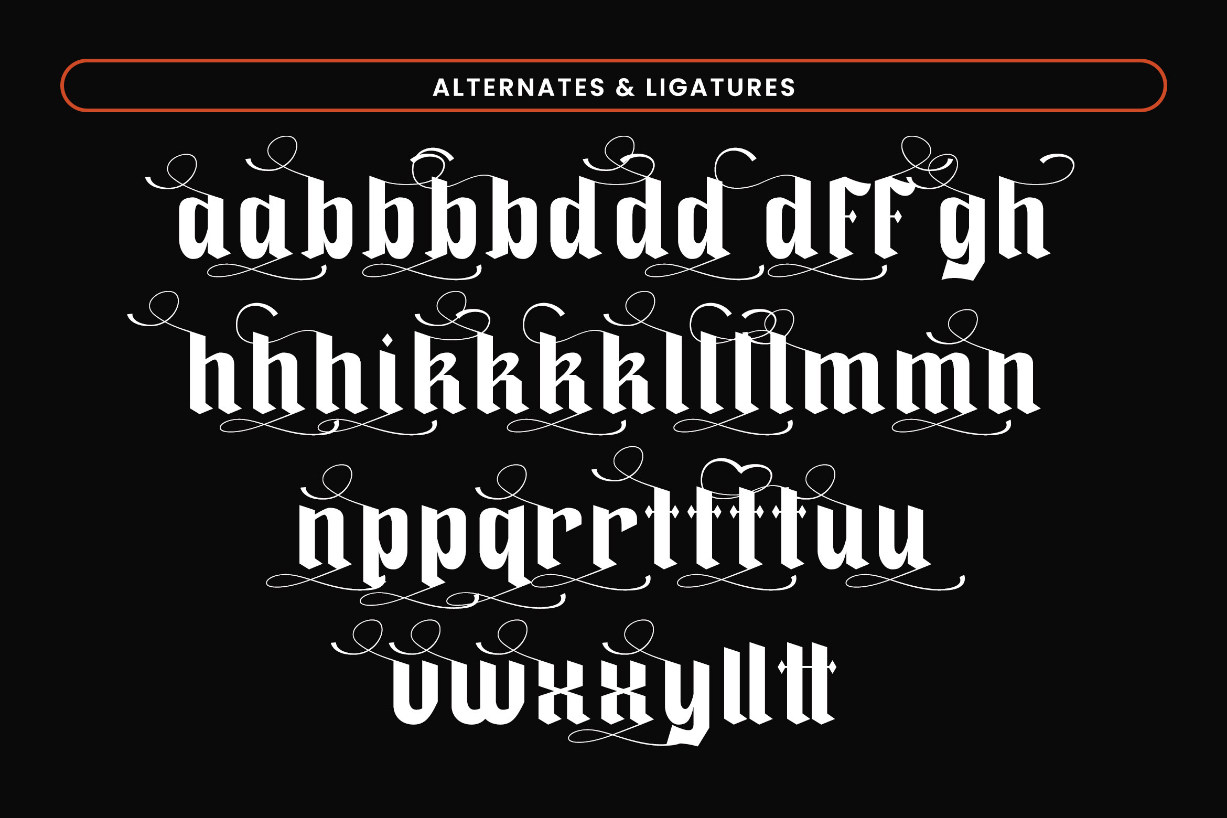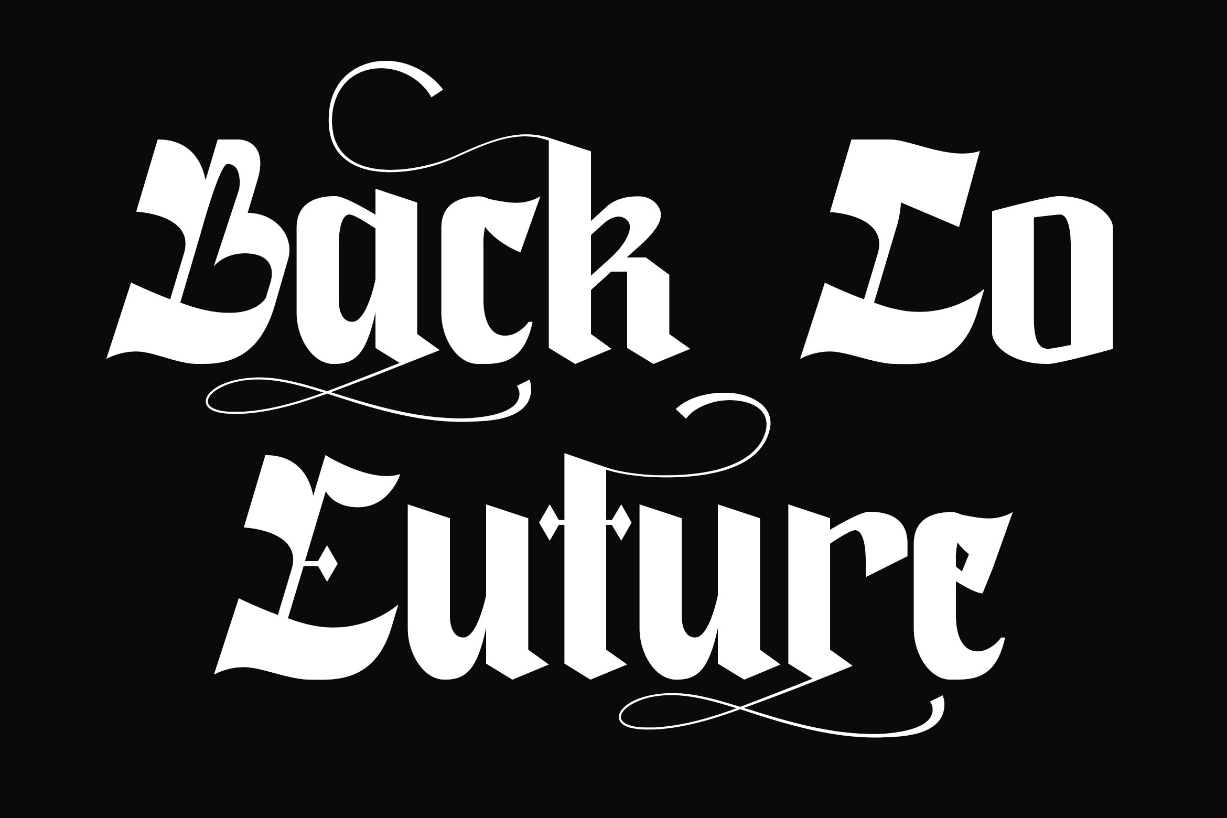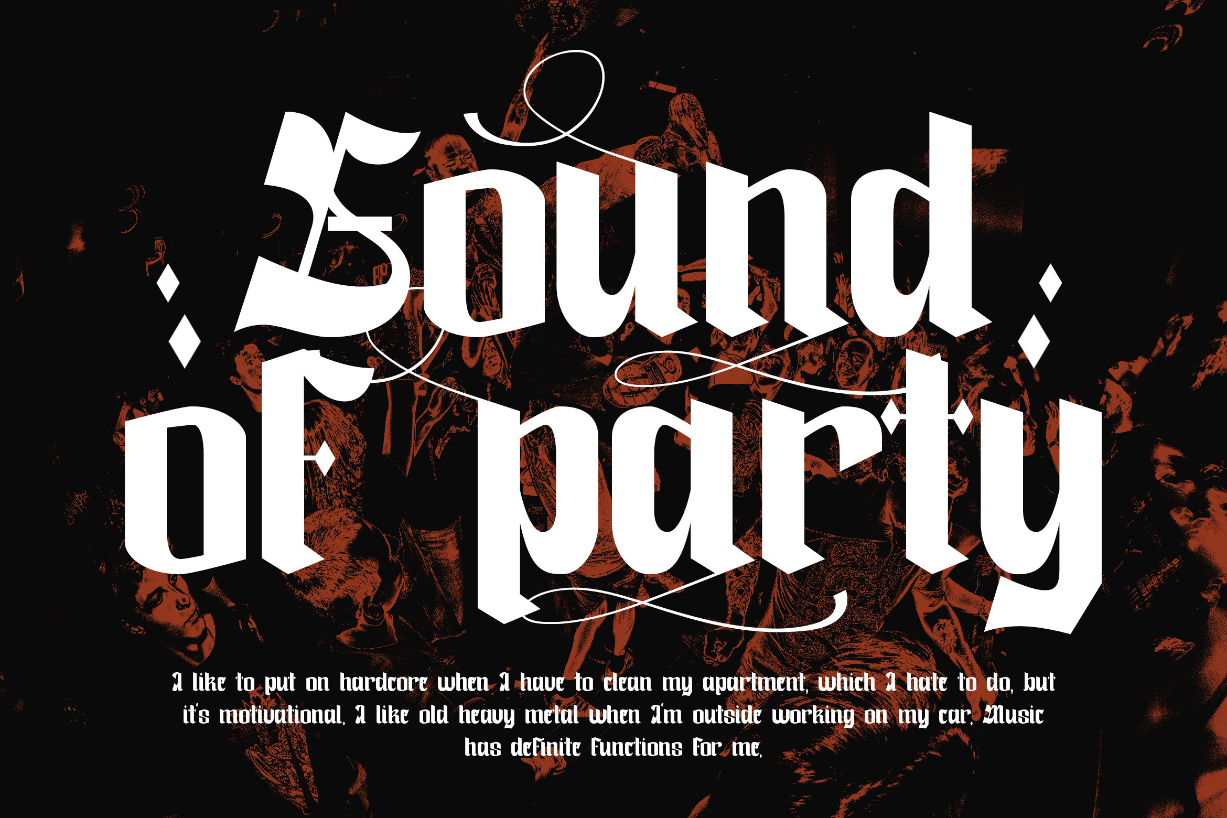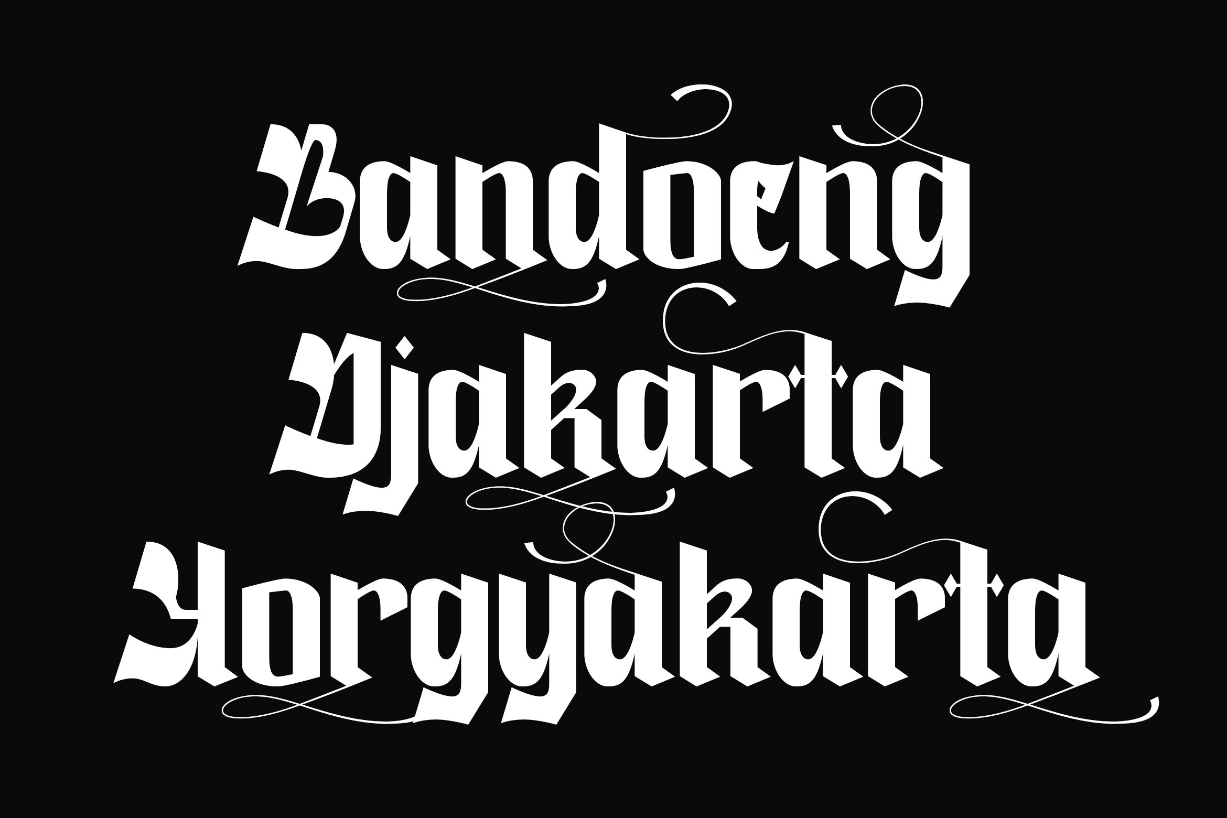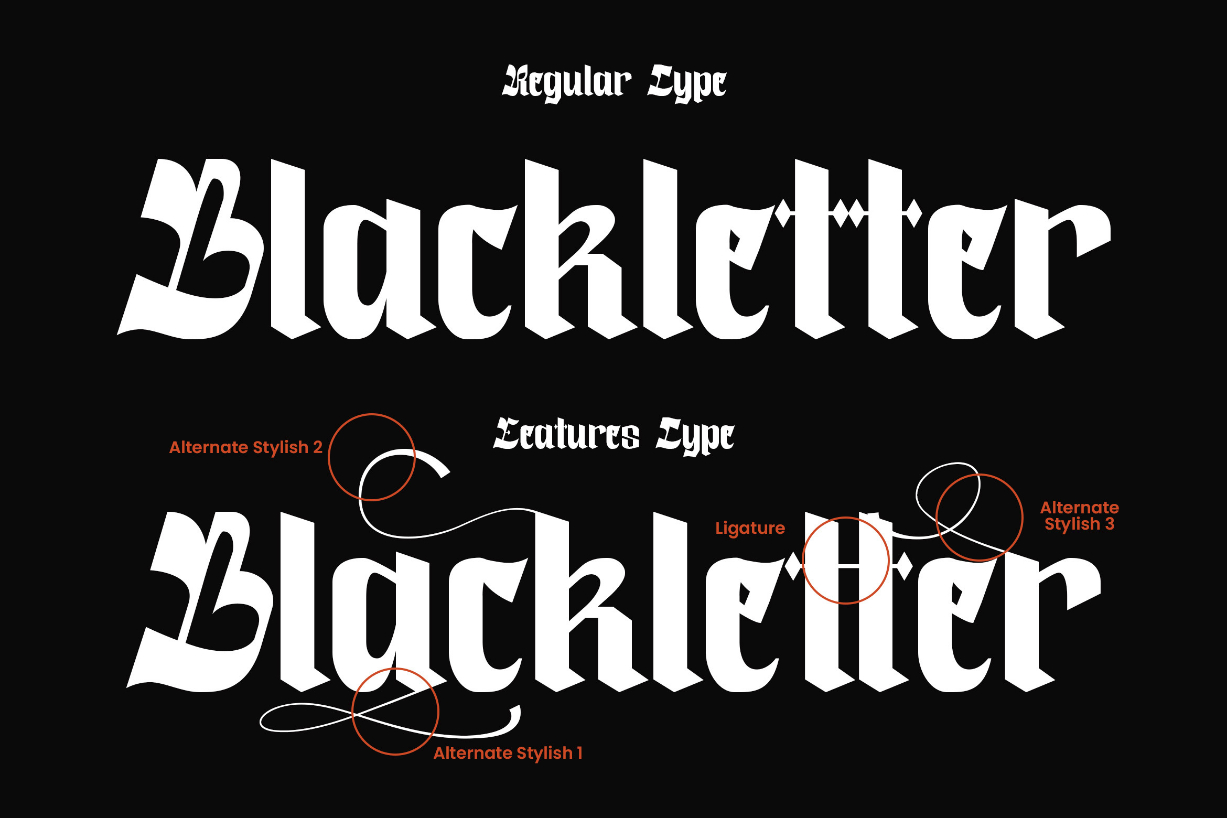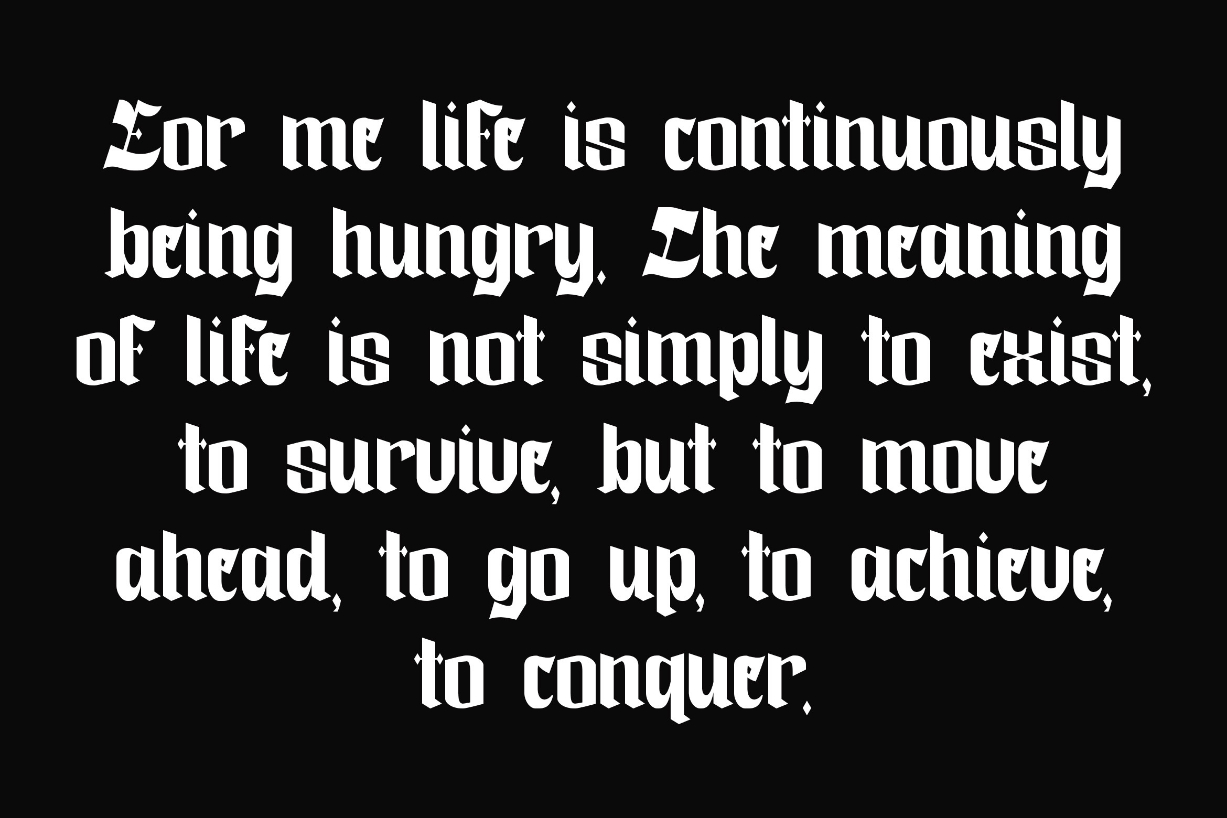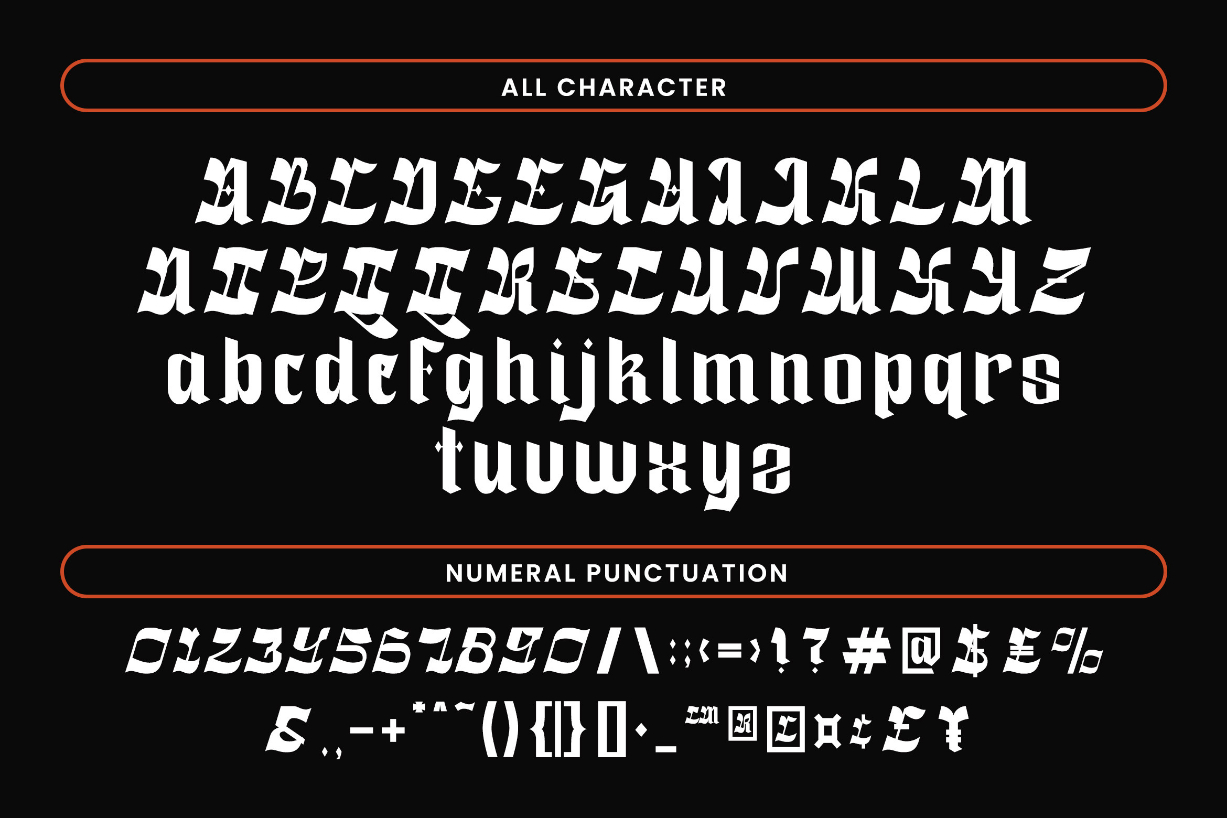
Sahaja Font
About Sahaja Font
The Sahaja font is inspired by Stiffness and the regrets of someone who wants to change or redeem it. This font I created is meaningful & very versatile, it goes well with various designs, elevating them to the highest level. Add this font to your favorite creative ideas and see the results!